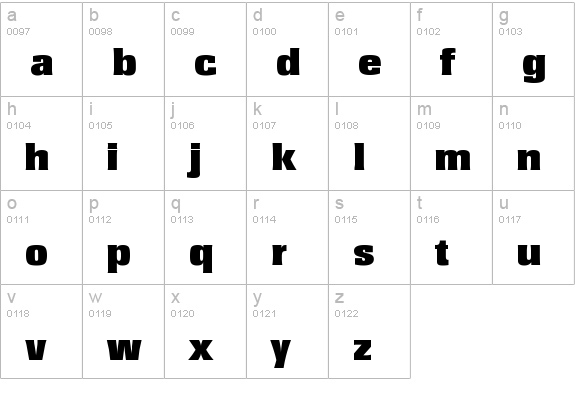
RochesterSerial-Black-Regular Font Details
RochesterSerial-Black-Regular is a maximum-weight, dramatic variant in the RochesterSerial typeface family \xE2\x80\x94 well suited to maximum-impact headlines, posters, and packaging.